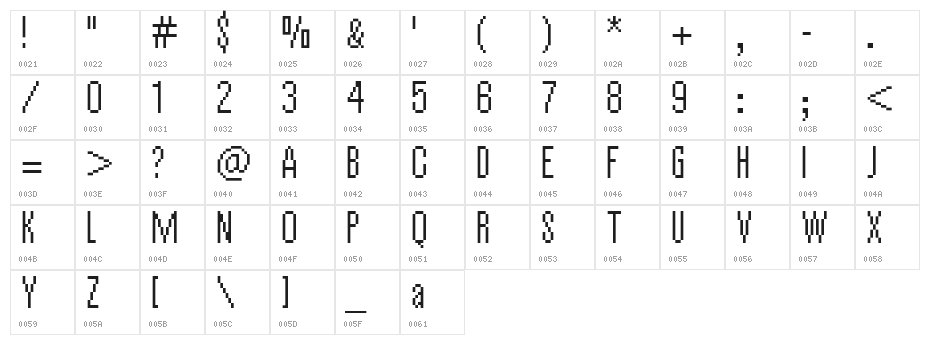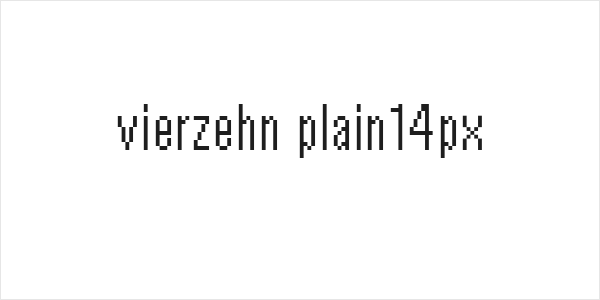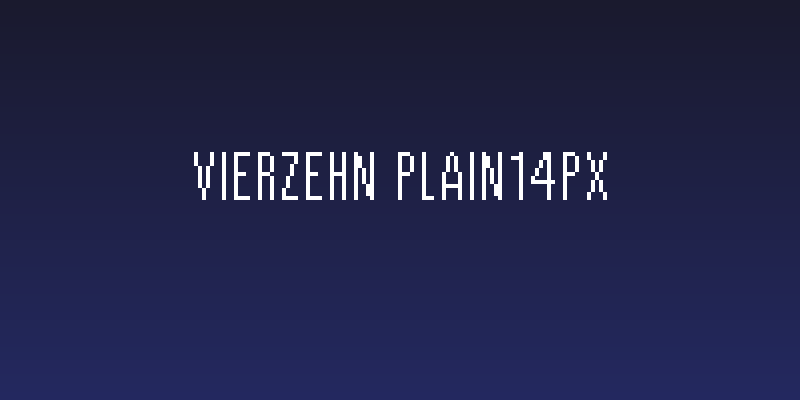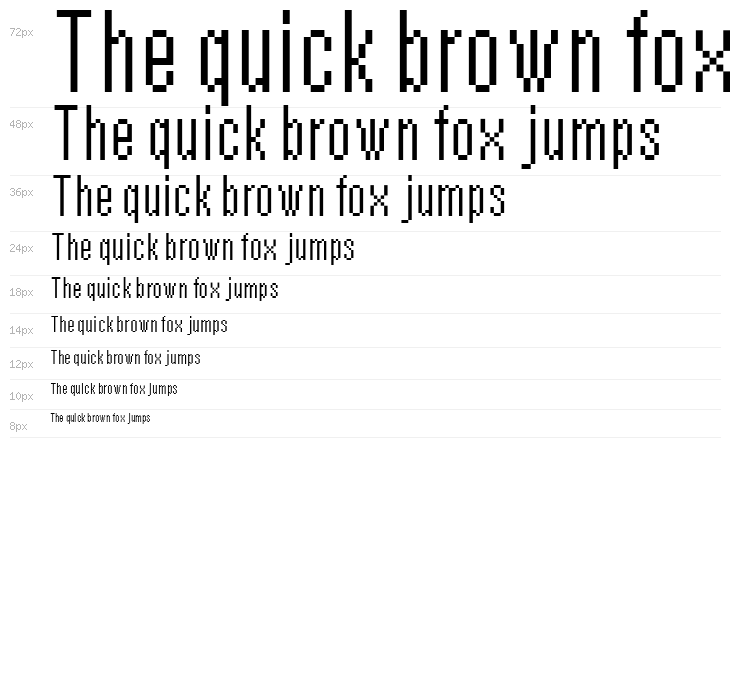
vierzehn plain14px Font
vierzehn plain14px Description
This font features a pixelated, grid-like design that evokes a retro, digital aesthetic reminiscent of early computer displays or video games. The characters are composed of small, square blocks, giving it a distinctly geometric and structured appearance. Each letter and number is clearly defined, with consistent line thickness and spacing, making it highly legible despite its unique style. The uppercase and lowercase letters maintain a uniform height, contributing to its orderly and cohesive look. The special characters are also crafted with the same pixelated precision, ensuring a seamless integration with the rest of the character set.
| Overall Style | Retro, Digital |
| Use Case | Headlines, Logos, Digital Art |
| Proposed Projects | Ideal for retro video game graphics, digital art projects, tech-themed designs, or any project seeking a nostalgic, digital aesthetic. |